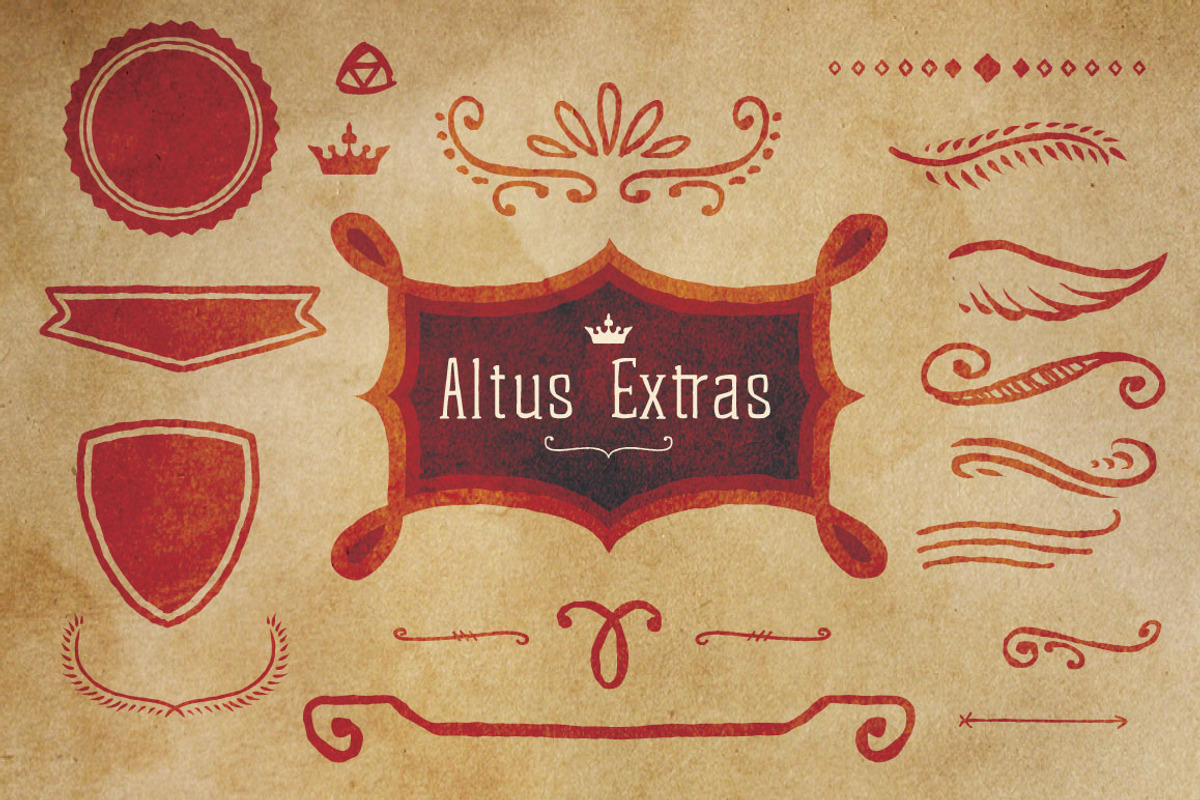
This is a massive collection of pretty much every retro symbol I've ever created, wrapped up in one neat package at a huge discount! Most of the symbols are already textured and have an authentic retro, vintage, letterpress feel perfect for branding and marketing.
Included in this package:
Altus Extras, 78 Symbols https://creativemarket.com/jhilgert00/27011-Altus-Family
Auburn Extras, 76 Symbols https://creativemarket.com/jhilgert00/607828-Auburn-Extras-Font-Vector
Castor Catchwords, 114 Symbols https://creativemarket.com/jhilgert00/21149-Castor-Catchwords
Castor Ornaments, 80 Symbols https://creativemarket.com/jhilgert00/21199-Castor-Ornaments
Corinth Ornaments, 121 Symbols https://creativemarket.com/jhilgert00/298612-Corinth-Ornaments
Microbrew Ornaments, 115 Symbols https://creativemarket.com/jhilgert00/50751-Microbrew-Ornaments
Microbrew Soft Ornaments, 85 Symbols https://creativemarket.com/jhilgert00/656173-Microbrew-Soft-Mega-Family
Microbrew Unicase Ornaments, 86 Symbols https://creativemarket.com/jhilgert00/296598-Microbrew-Unicase-Family
Microbrew Unicase Catchwords, 84 Symbols https://creativemarket.com/jhilgert00/296598-Microbrew-Unicase-Family
Signyard Symbols, 90 Symbols https://creativemarket.com/jhilgert00/88650-Signyard-Family